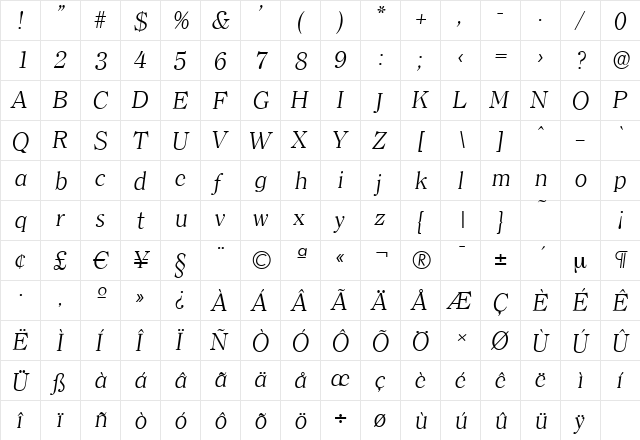
ClearfaceSerial-Light Italic Font Preview
Design Context for ClearfaceSerial-Light Typeface
ClearfaceSerial-Light offers clean, dependable letterforms without strong stylistic allegiance, making it a practical choice for designers who need flexibility. The slanted form adds forward momentum and visual energy. The delicate stroke weight brings airiness and refinement to layouts.
Pro Tip: Try ClearfaceSerial-Light for annotation and caption copy alongside an upright companion — the contrast in angle creates a dynamic but ordered typographic system.